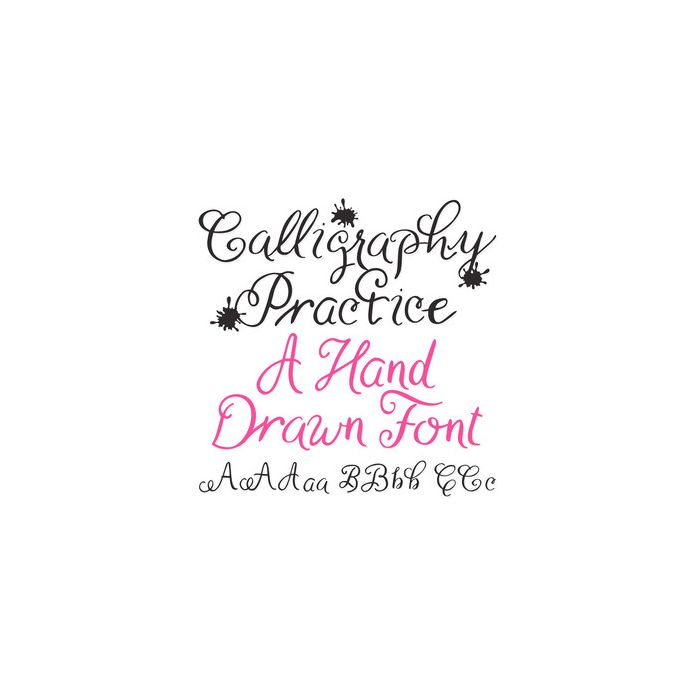
This hand drawn script alphabet can be used for any project! This font includes Uppercase, lowercase variations, 0-9, and basic punctuation. Also included are 3 Ink Splat icons. *Kerning, letting, and baseline may need to be adjusted for desired effect. Total glyphs count: 150